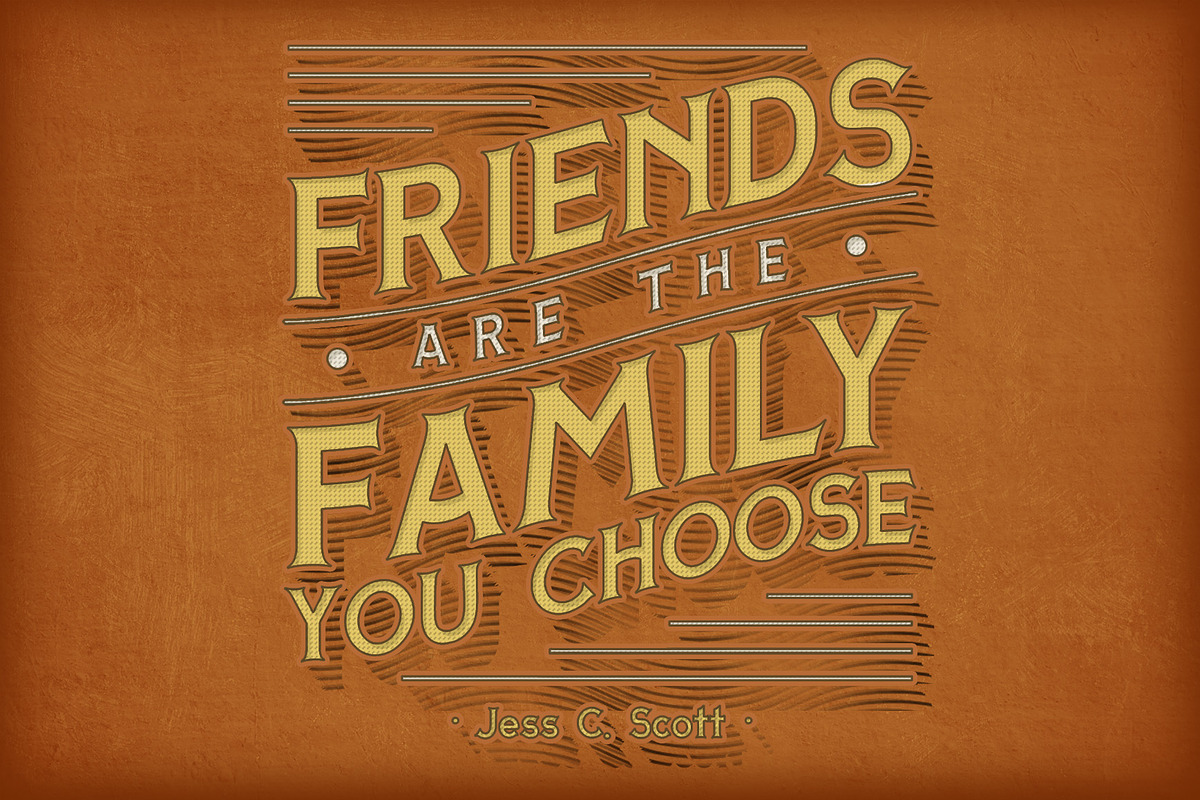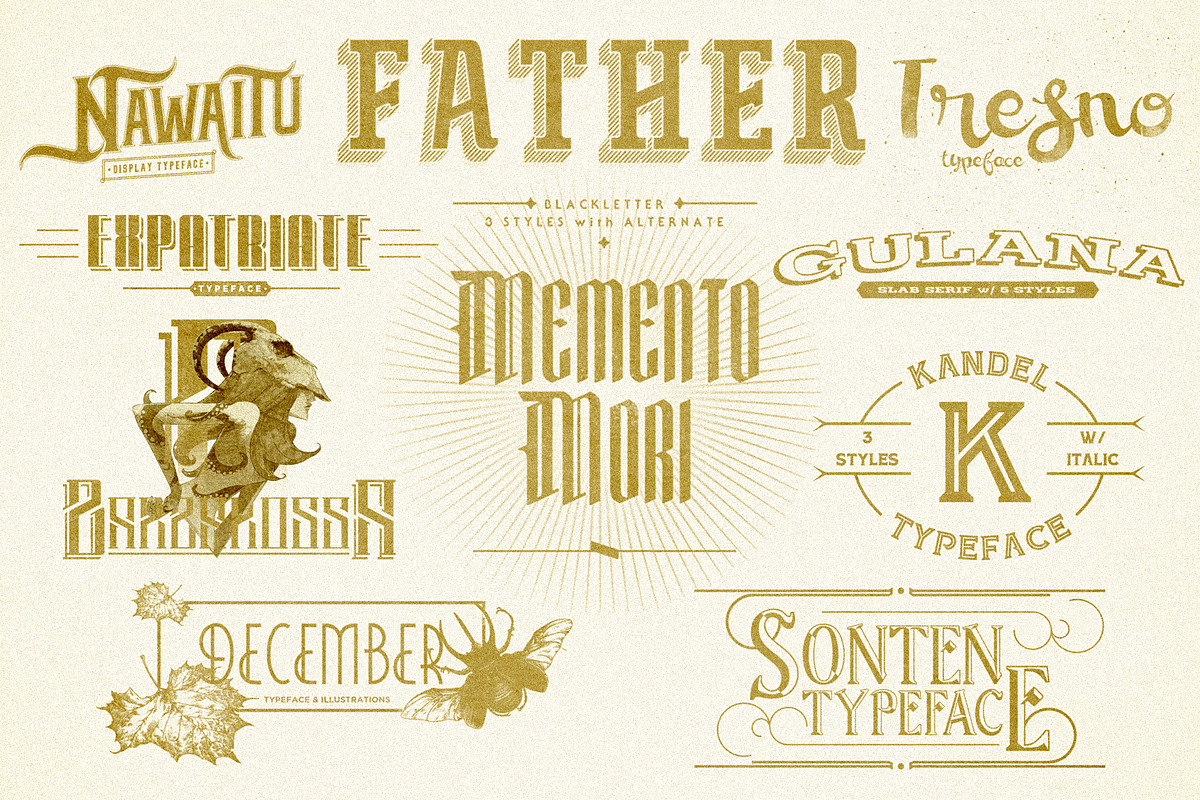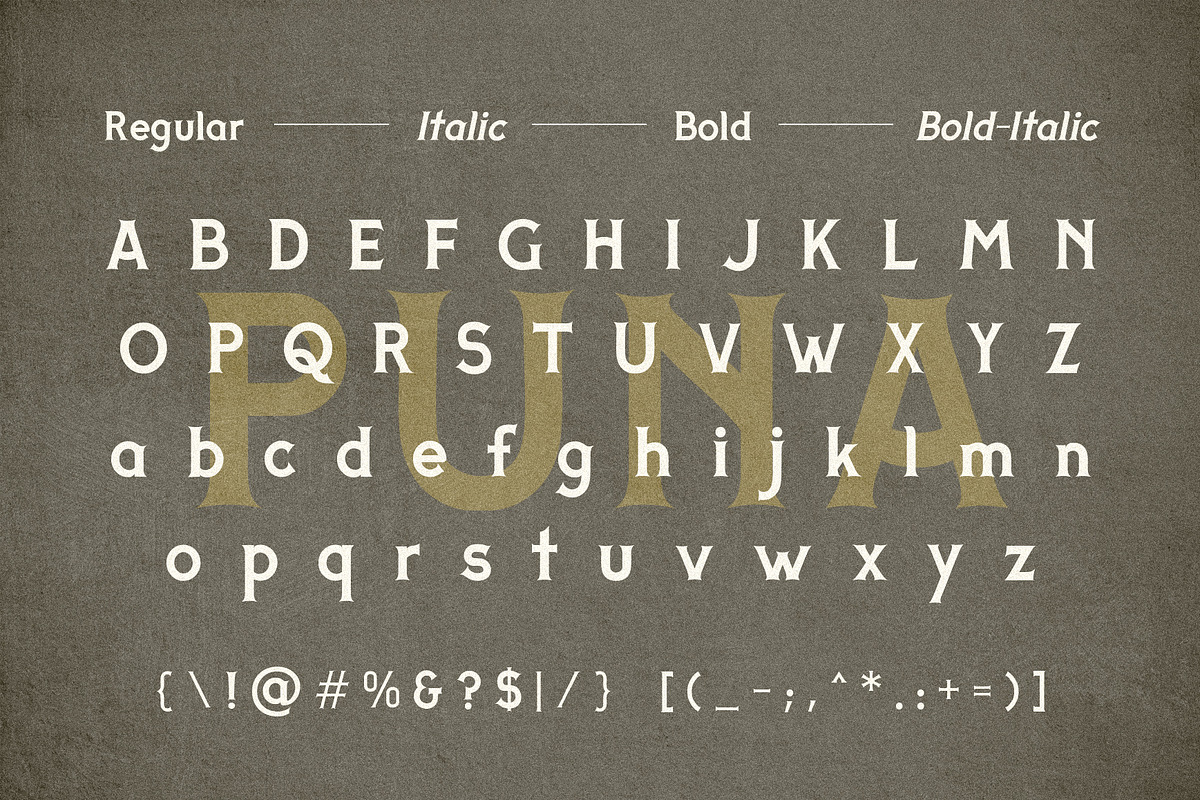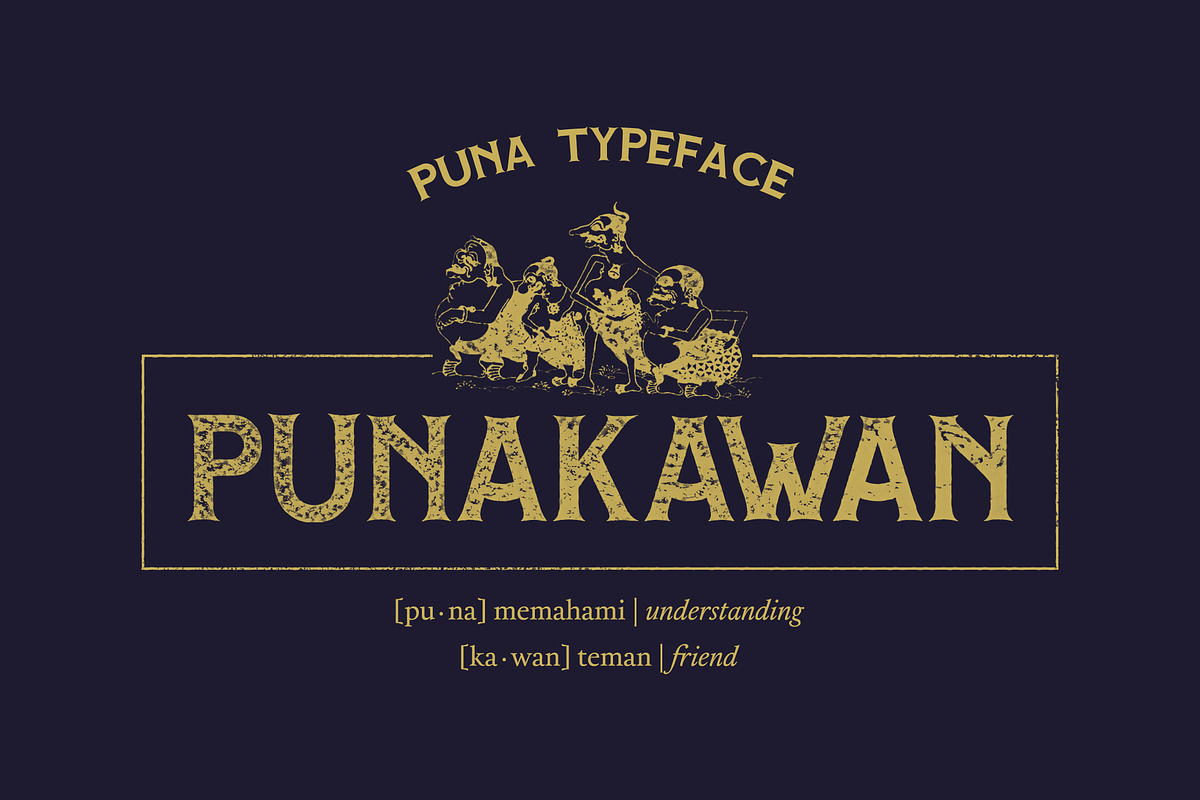
Adhreza's Bundle + PUNA Typeface
Adhreza's Bundle + PUNA Typeface by Adhreza is a font selected for branding, posters, packaging, typography.
- The name "Puna" comes from the Wayang Story, a group of funny characters that only exist in Indonesia version called Punakawan.
Adhreza's Bundle + PUNA Typeface by Adhreza fits naturally into Branding, posters, packaging, typography.